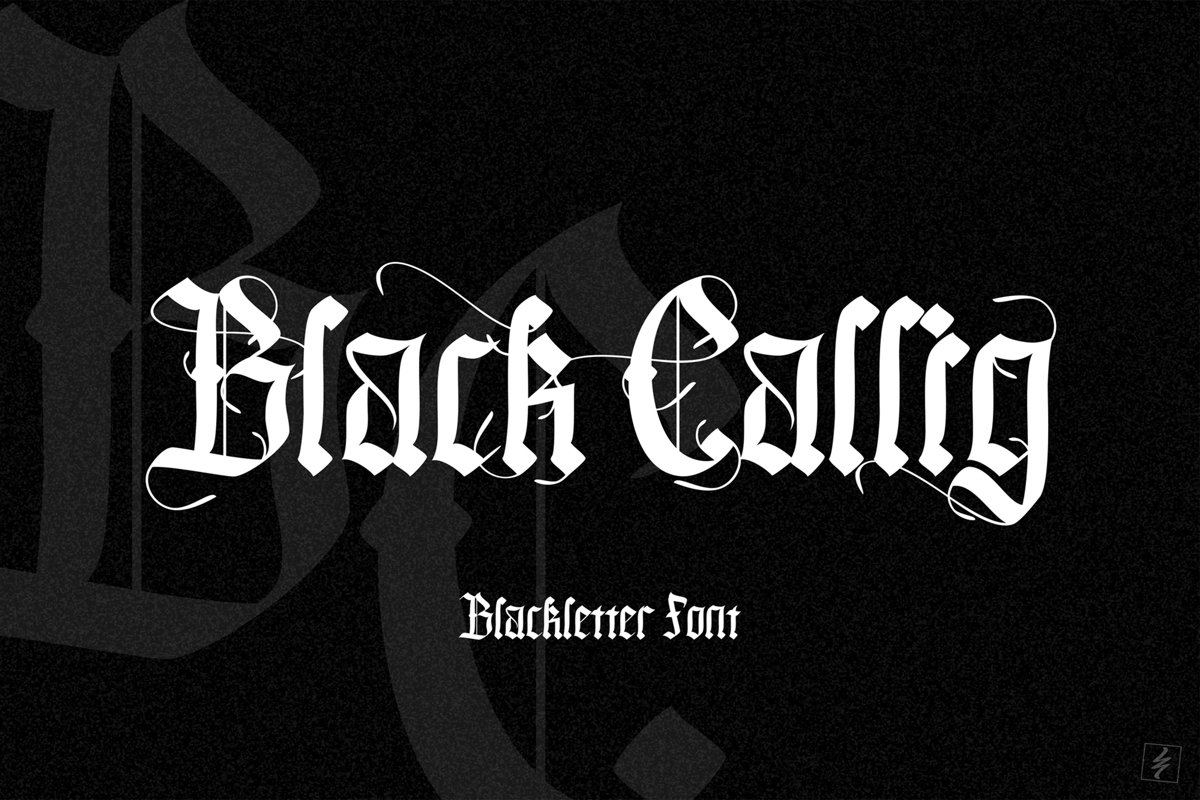
Black Callig
Black Callig is a Blacklatter font. Black Callig has a lot of stylistic set alternates that you can apply for your text. This font look a simple characters but it has many alternates so you can change your design text for the amazing typaface. Black Callig font is suitable for logo, t-shirt, design product, and anything you want for your design work. The font has any punctuations and multilanguage support.